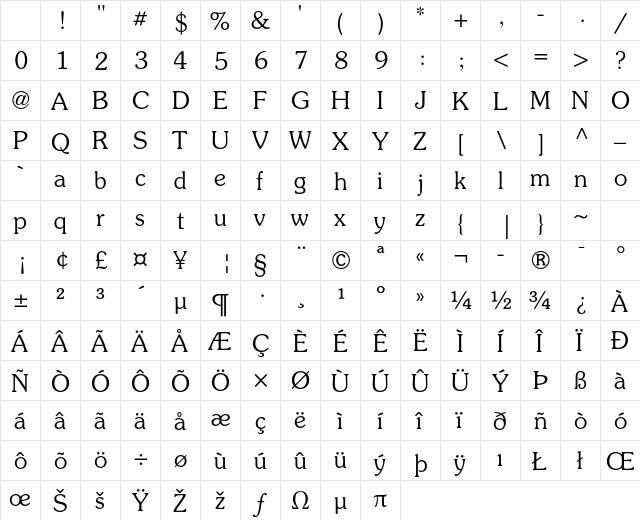
ITC Souvenir Std Light Free Font
ITC Souvenir Std Light
Designer: Ed Benguiat
Design Context for ITC Souvenir Std
ITC Souvenir Std is a composed and adaptable typeface that performs quietly and consistently across a wide range of design contexts. Its slender proportions lend an understated elegance to any composition.
Pro Tip: Use ITC Souvenir Std in both headline and body roles to test its range before committing to a single application.